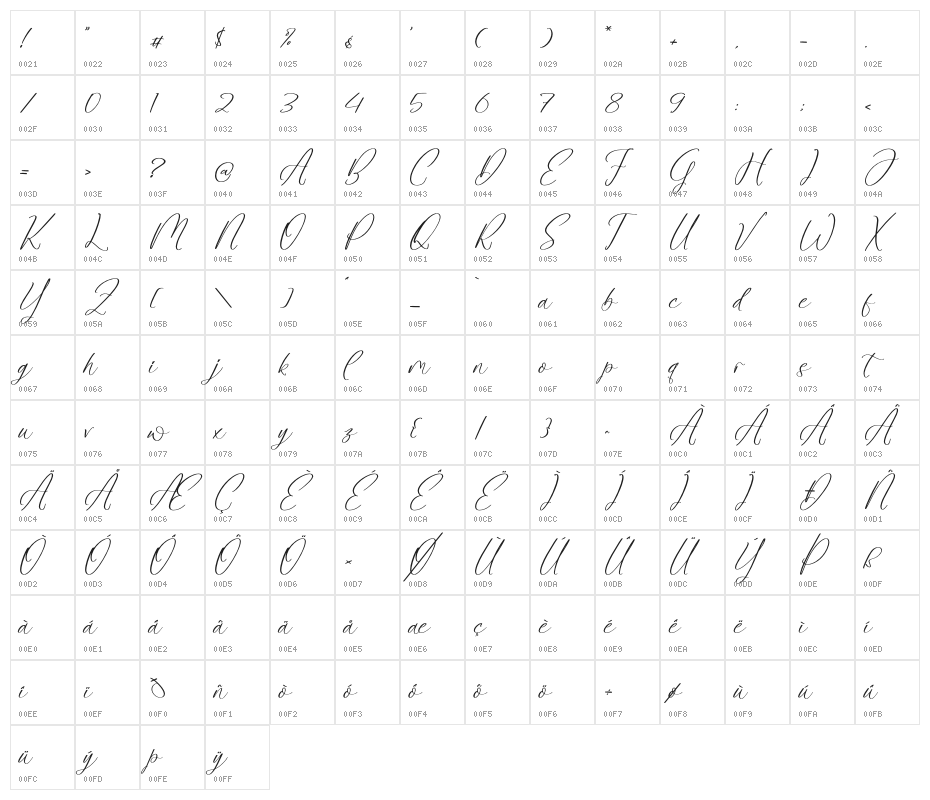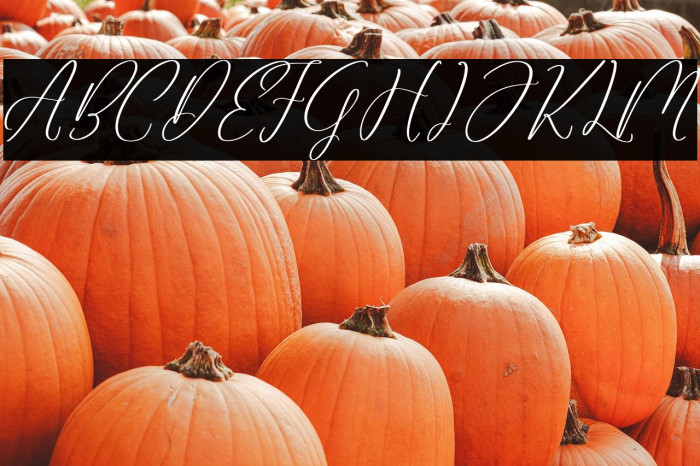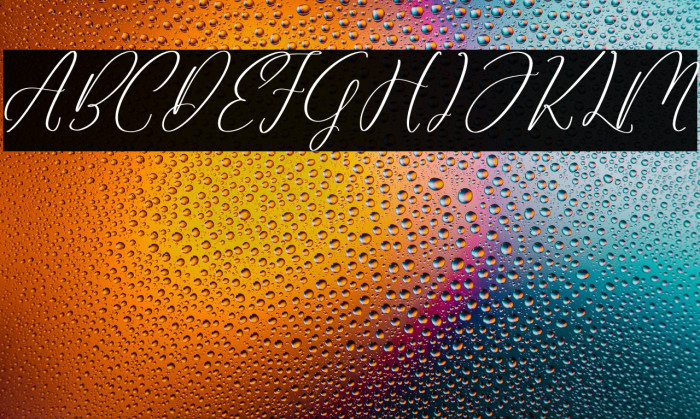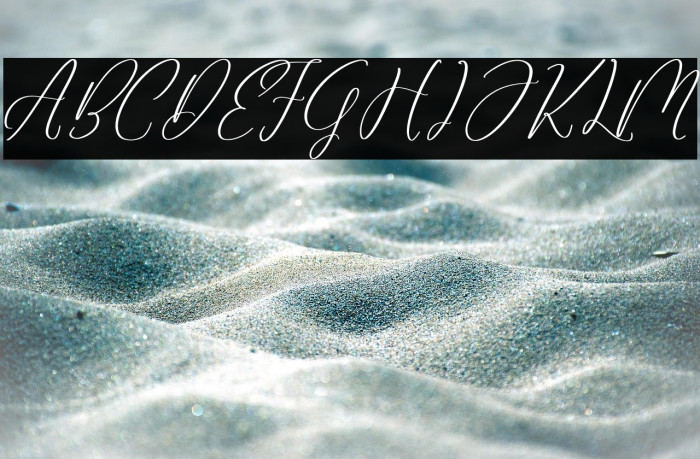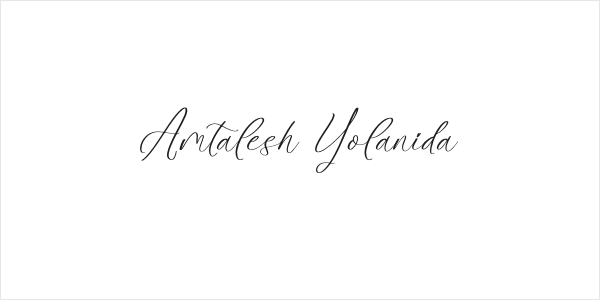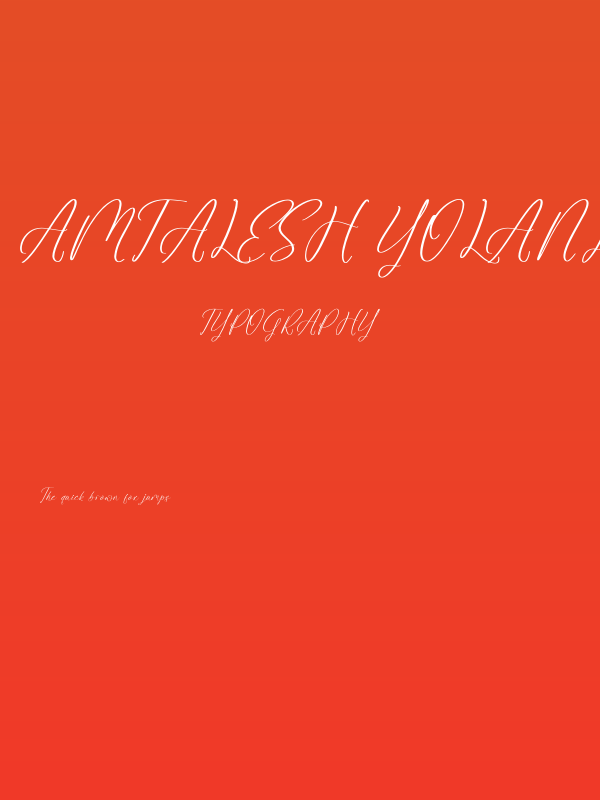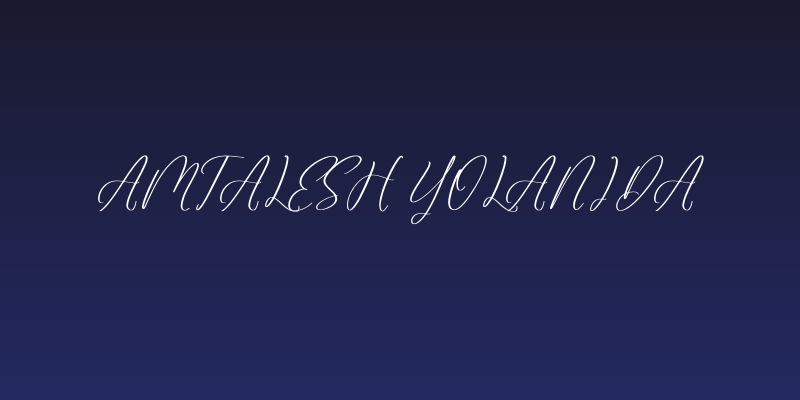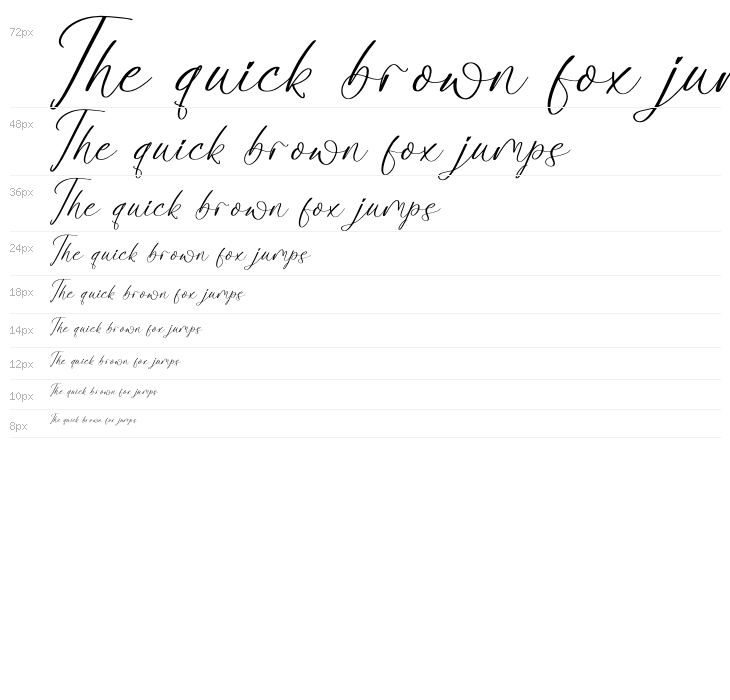
Amtalesh Yolanida Font
Amtalesh Yolanida Description
A flowing, elegant script font with a handwritten style, featuring smooth curves and a natural, cursive appearance.
| Use Case | Logos, Invitations, Greeting cards |
| Proposed Projects | Invitations, greeting cards, personal branding. |